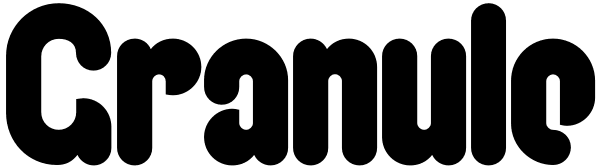
Granule
A basic rounded sans-serif with a twist, Granule is tightly kerned to emphasize the rhythm of the letterforms, with a distinctive curl on a few of the lowercase letters to separate it from the pack. Granule includes a full character set with...